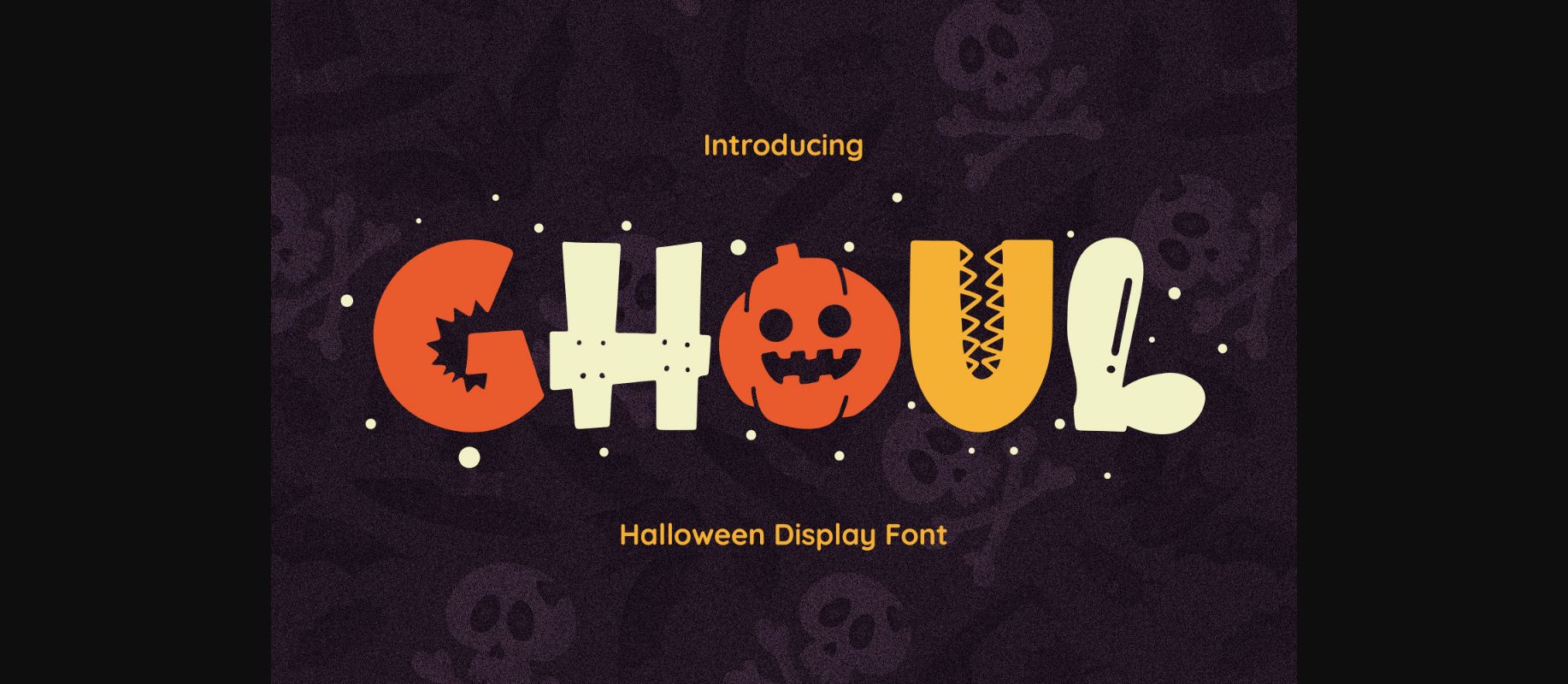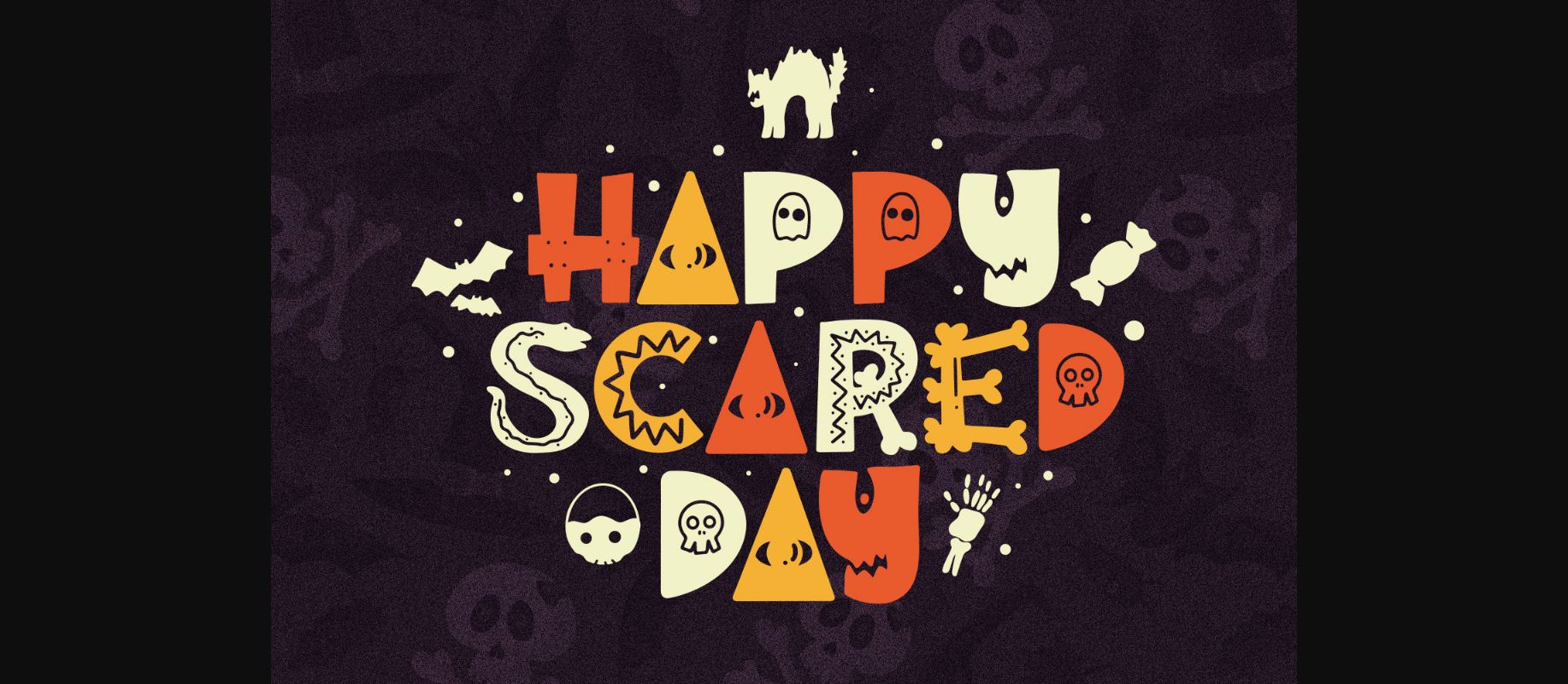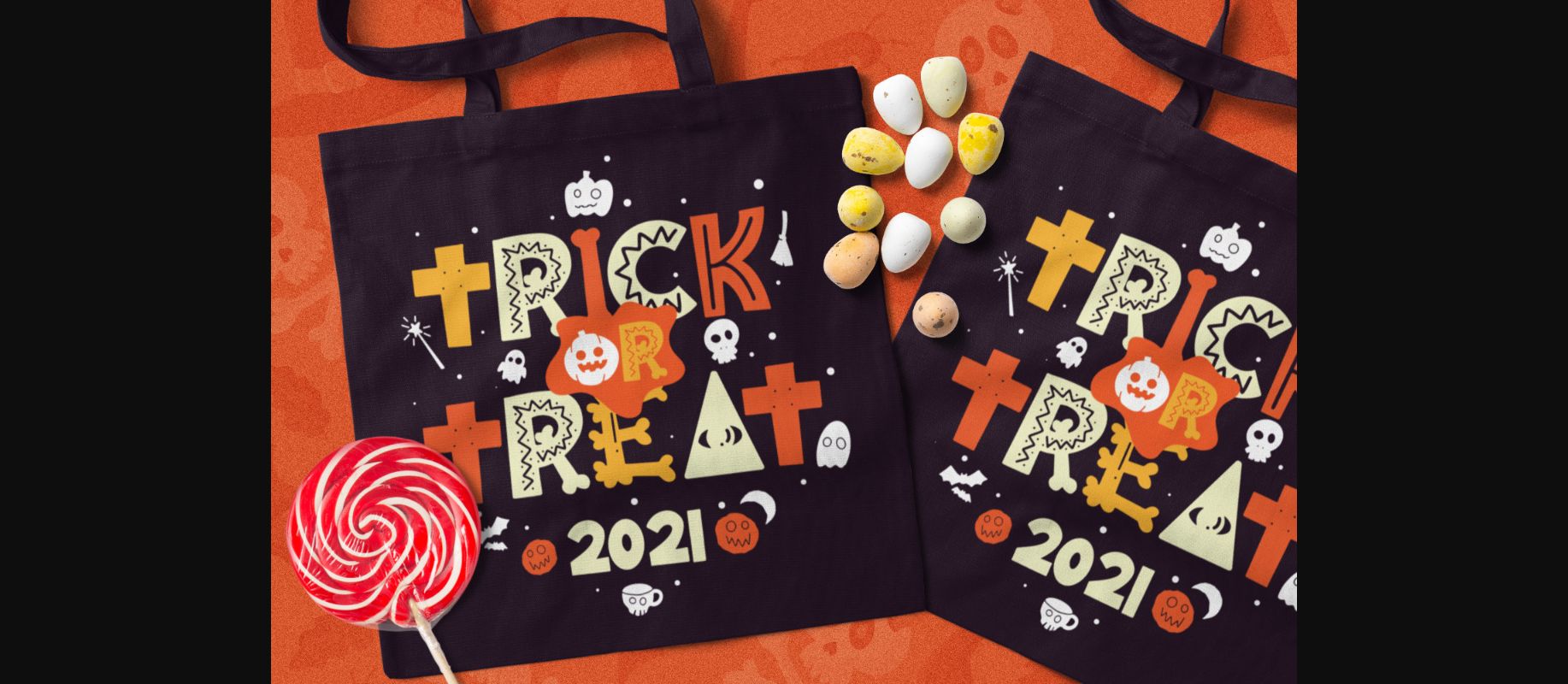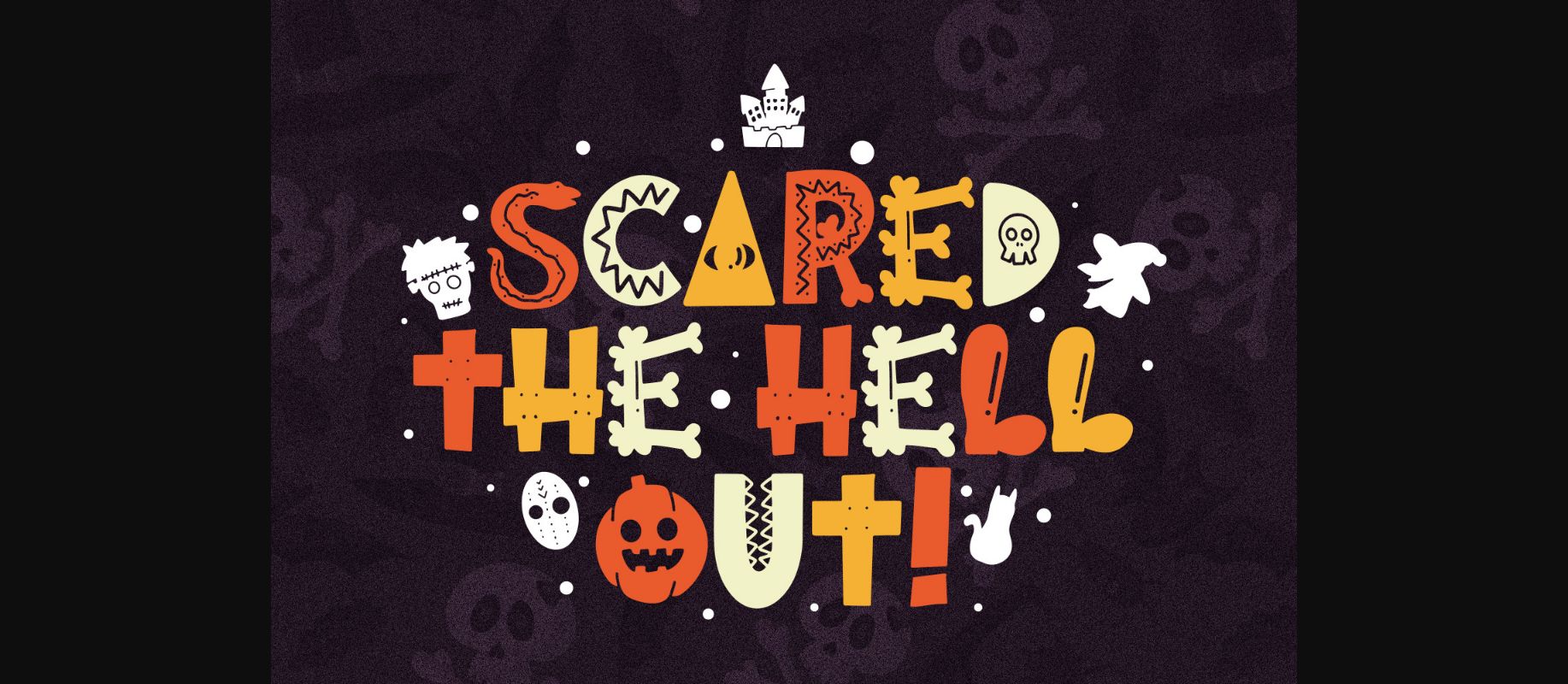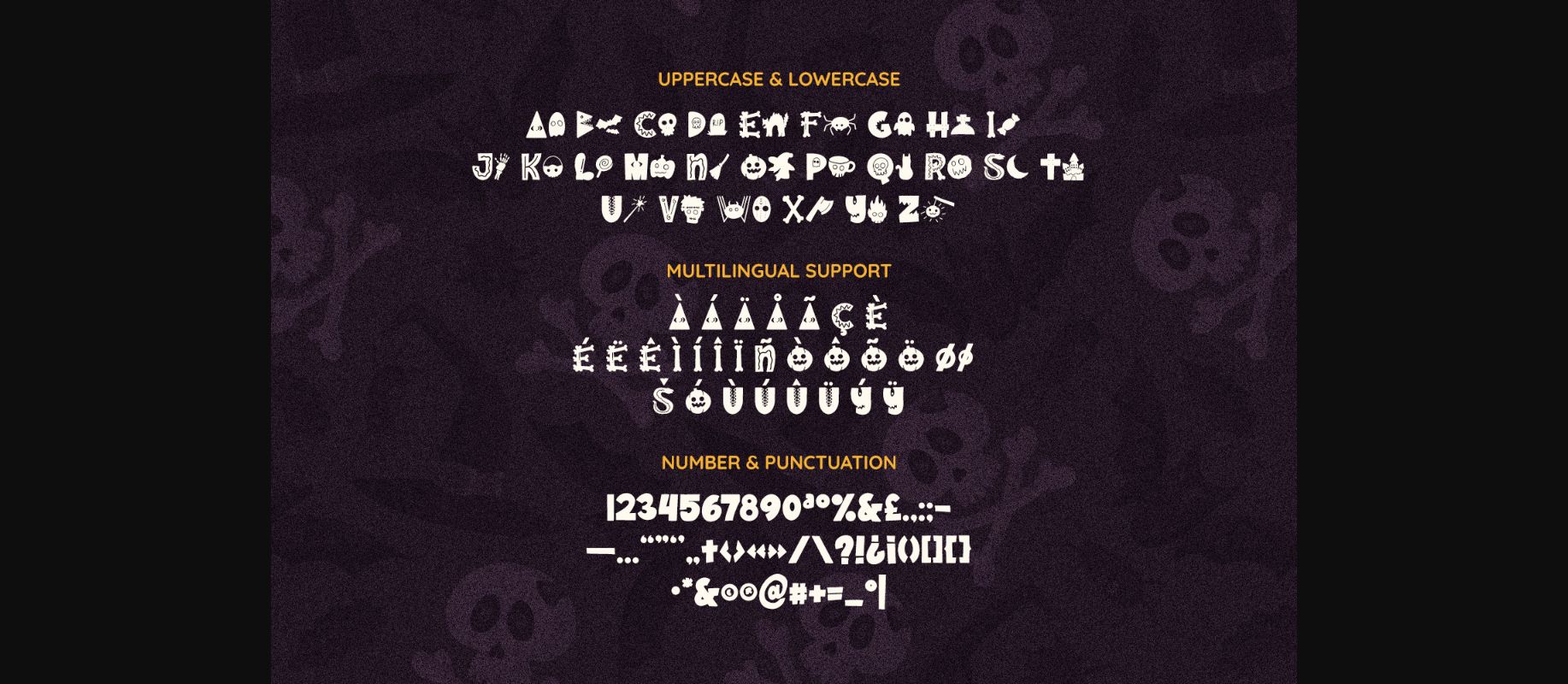
Ghoul Font
About Ghoul Font
Ghoul is a thick-lettered, quirky and spooky decorative font. It is perfectly suitable for any Halloween-related project or crafty idea! The only limit is your imagination.